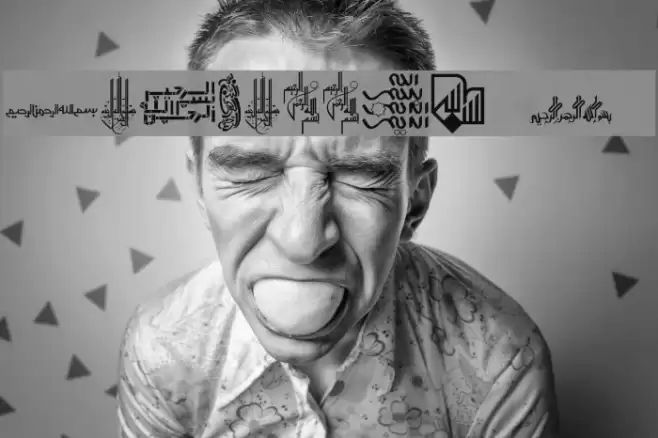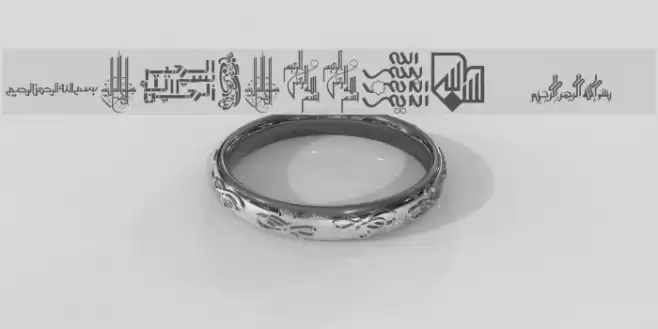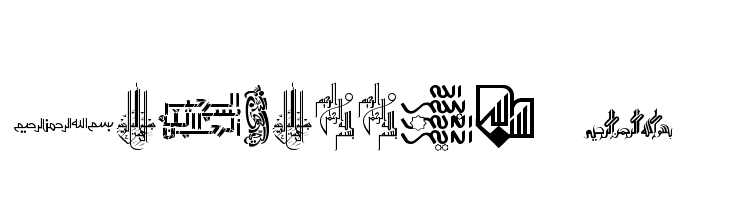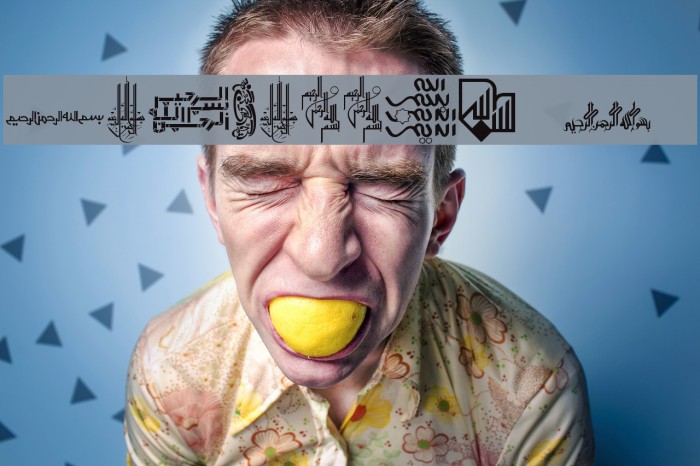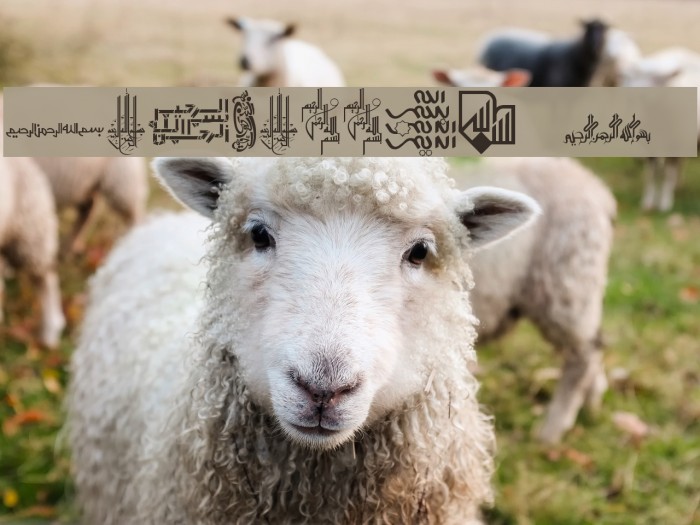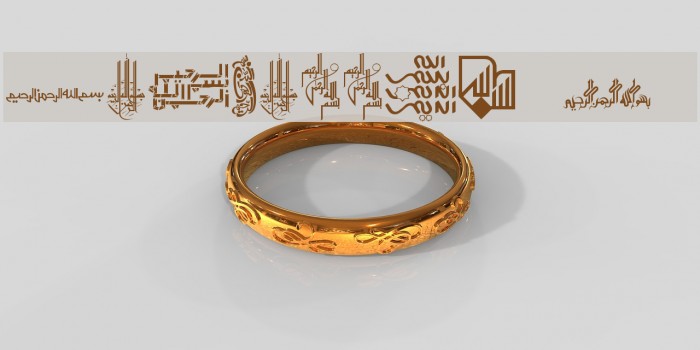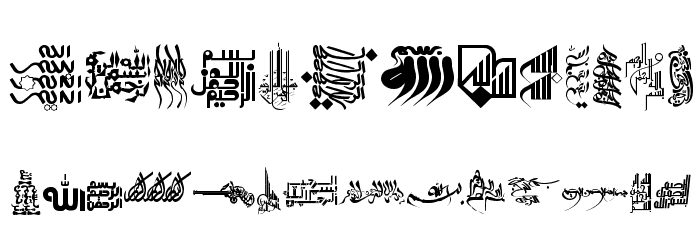
Besmellah 4 Font
Besmellah 4 Description
This font is a collection of intricate and artistic calligraphic designs, primarily featuring Arabic script. The characters are highly stylized, with elaborate flourishes and varying line thicknesses that create a dynamic and visually engaging appearance. The font showcases a blend of traditional calligraphy with modern design elements, making it suitable for decorative purposes. The characters are closely spaced, enhancing the compact and cohesive look of the text. The overall style is both elegant and bold, capturing the essence of classical Arabic calligraphy while incorporating contemporary aesthetics.
An artistic and intricate Arabic calligraphic font with modern design elements from Dingbats fonts.
- Proposed Projects: Ideal for use in religious texts, cultural event posters, decorative art pieces, and branding that requires a touch of elegance and tradition.
- Character Spacing: Tight
- Use Case: Logos, Decorative art, Cultural event materials